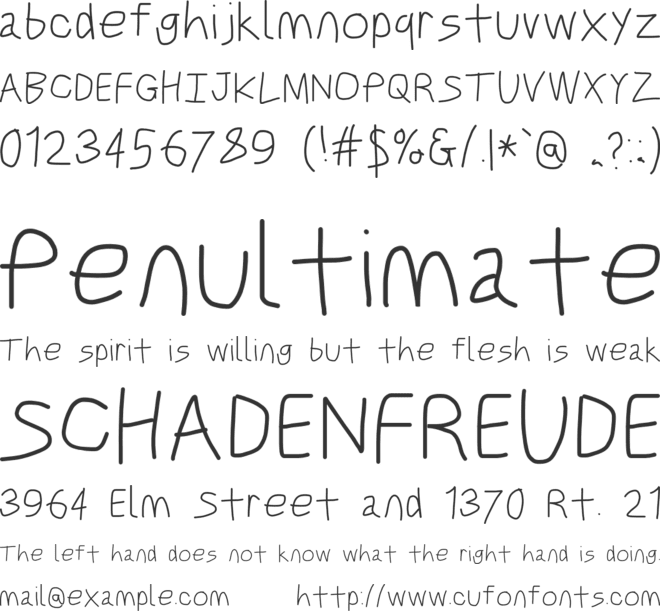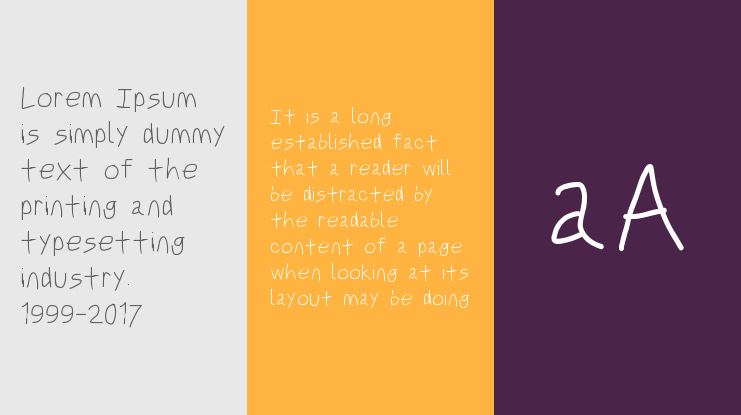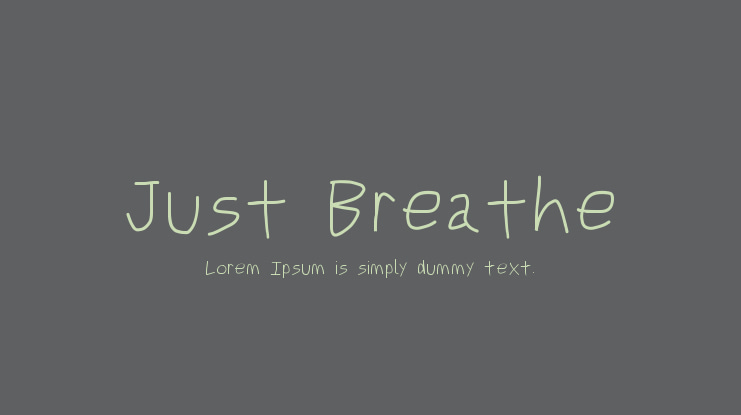
Just Breathe Font Family
This is an Open Source handwriting style font with a large character set, including parts of Latin extended, and basic Cyrillic character sets.